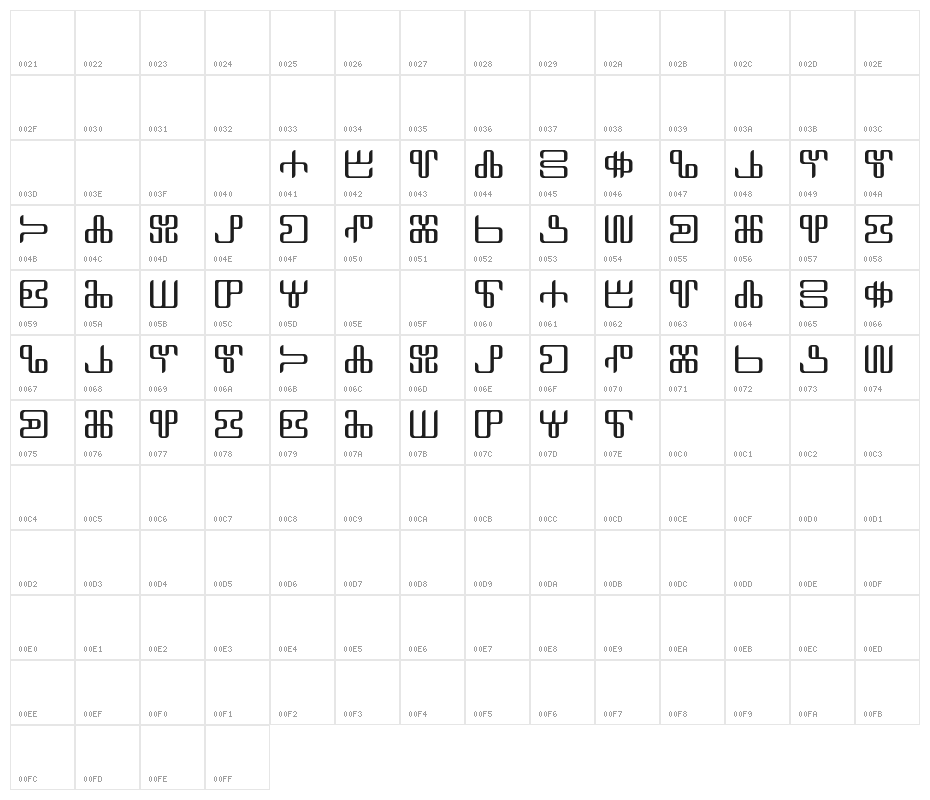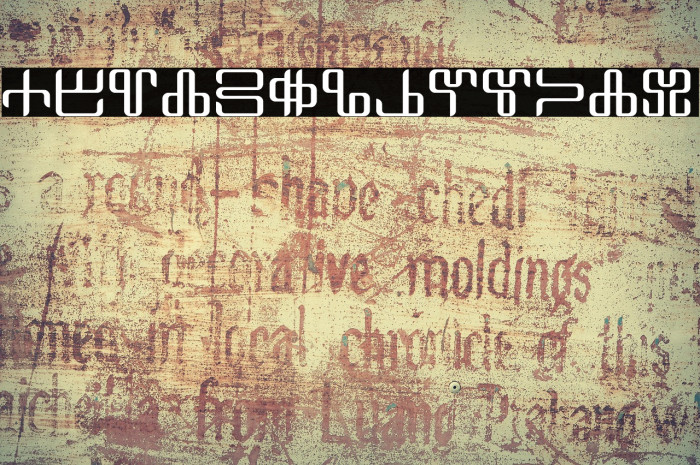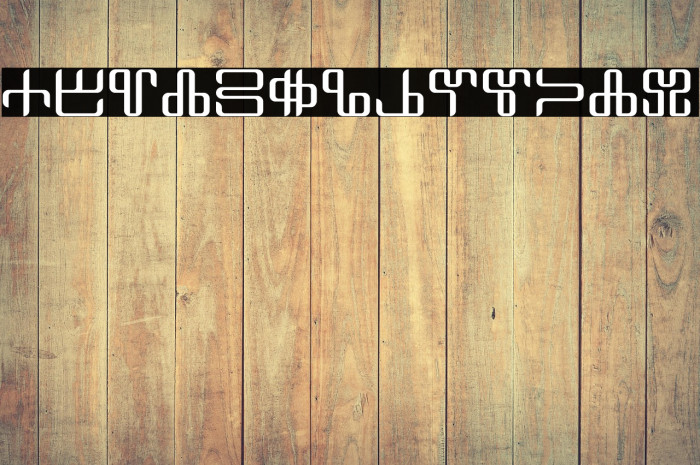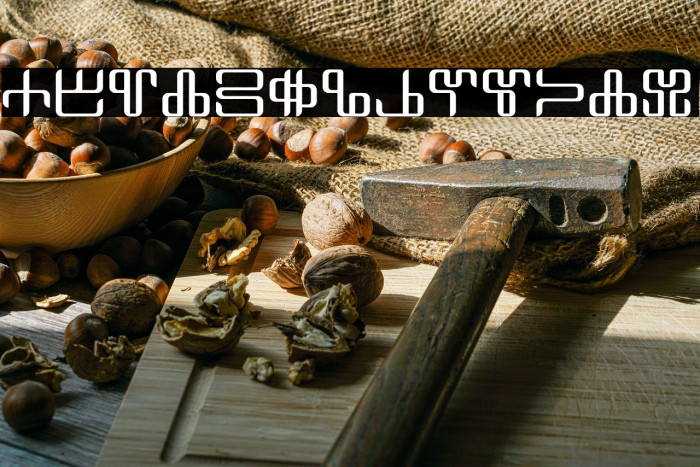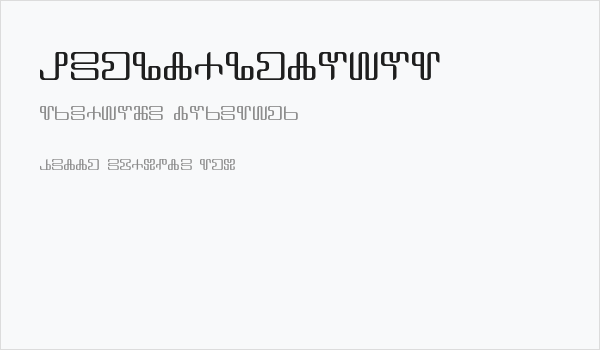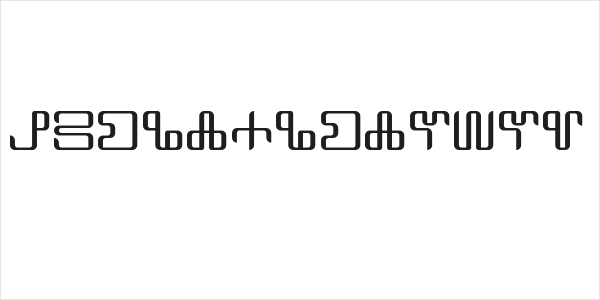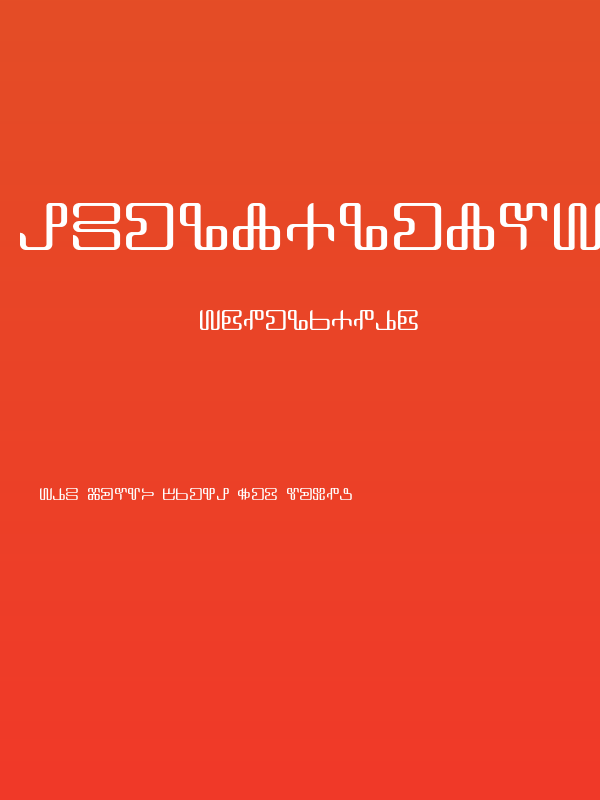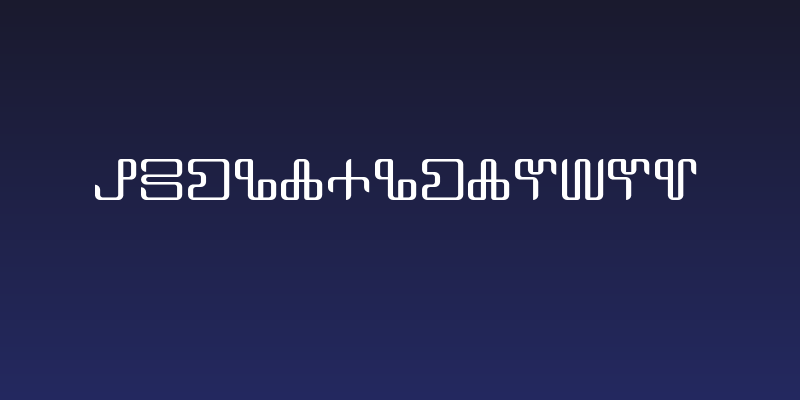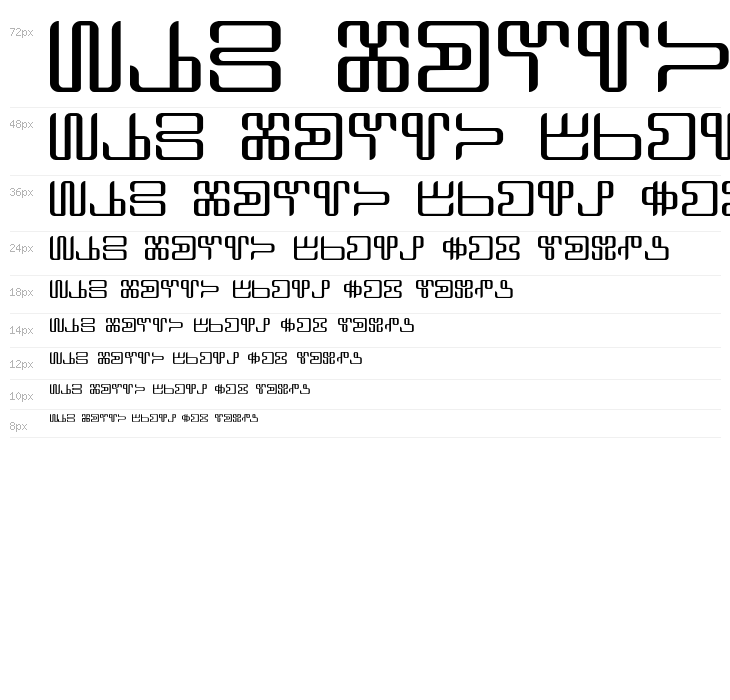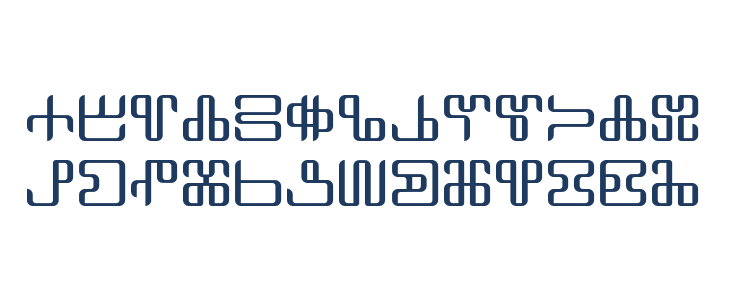
Neoglagolitic Font
Neoglagolitic Description
This font features a unique, modern interpretation of ancient script styles, characterized by its geometric and interconnected letterforms. The characters are composed of continuous lines that form intricate shapes, giving it a distinct and artistic appearance. The font maintains a consistent line weight throughout, contributing to its cohesive and structured look. The design is both decorative and functional, making it suitable for creative projects that require a touch of historical or cultural flair. Its bold presence and intricate details make it stand out, while the uniformity in stroke width ensures readability.
| Use Case | Logos, Posters, Artistic projects |
| Proposed Projects | Ideal for cultural projects, artistic designs, branding, and decorative purposes. |